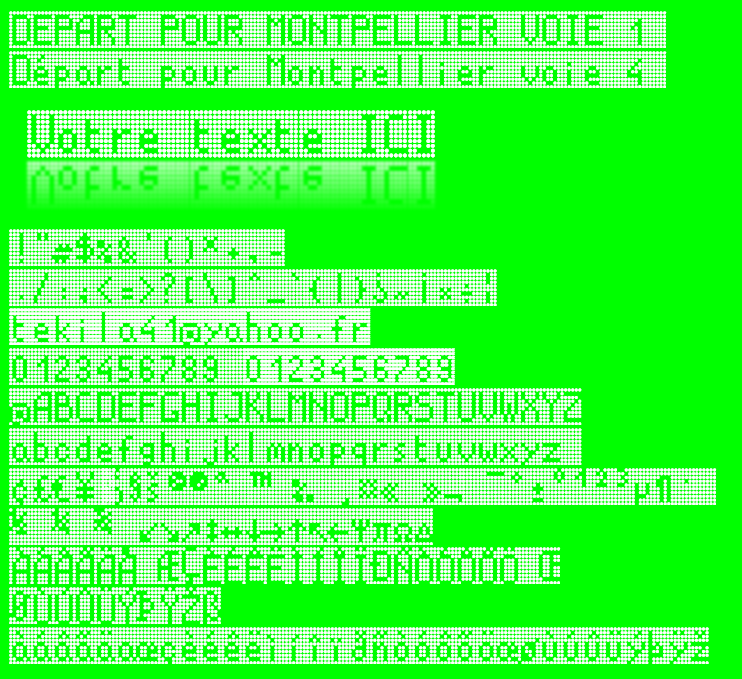
Font name: | Led Panel Station Off |
Author: | Pierre Boutet |
Note by Pierre Boutet | |
Police inspir�e des anciens panneaux d'affichage de gares et a�roports. Existe en version ON, et en version OFF. Id�al Wordart, affiche... Pour usage personnel uniquement. Me contacter pour un usage commercial : tekila41@yahoo.fr Font inspired by old station and airport billboards. Available in ON version, and in OFF version. Ideal Wordart, poster ... For personal use only. Contact me for commercial use: tekila41@yahoo.fr |